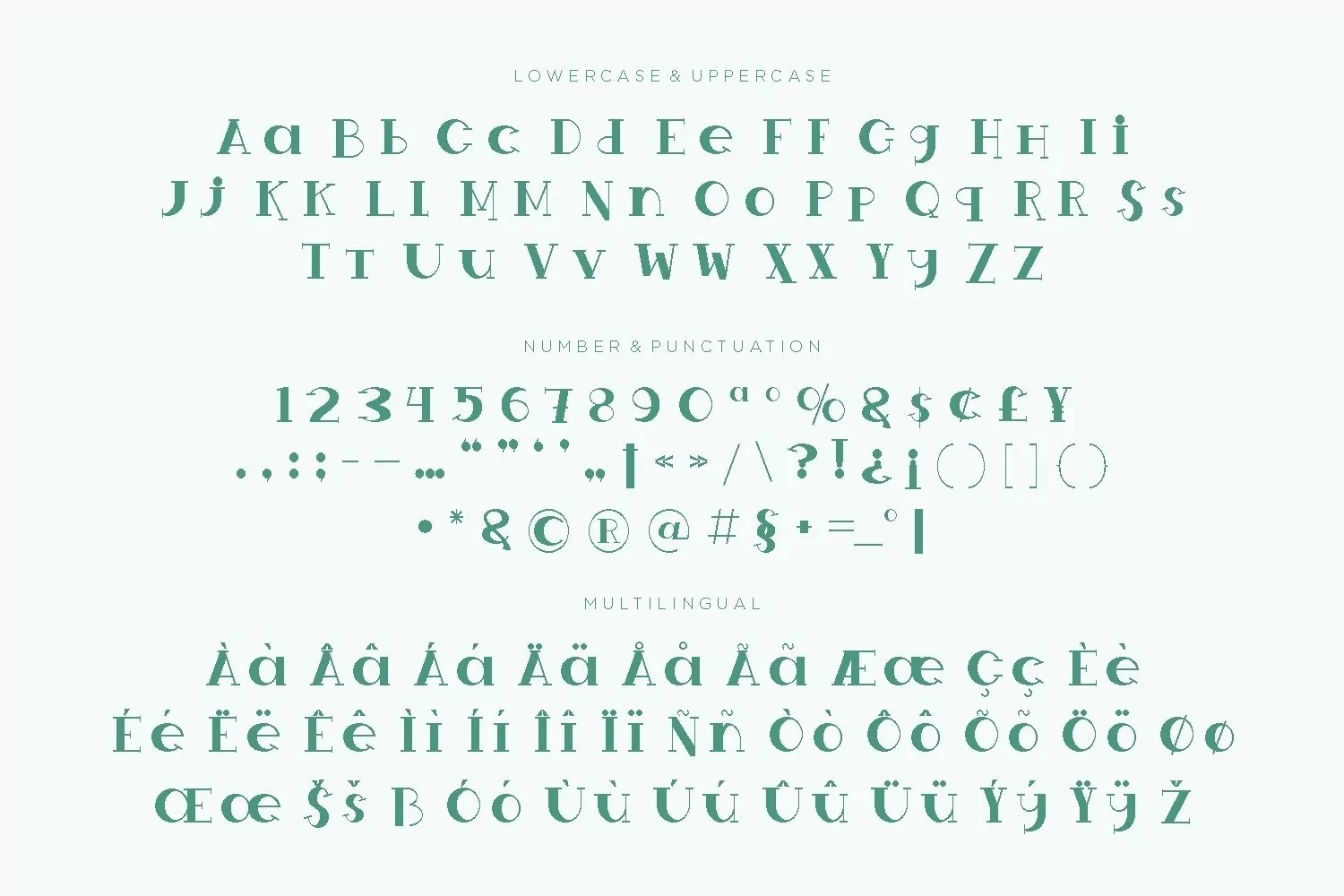
Arabella is a stylish serif font come with luxury themes. This font create with beautiful looks modern. It matches applies in some designs such as the logotype, brand, packaging, quotes, poster, shirt, book, wedding invitation and more custom design. The features uppercase, lowercase, numeral, punctuation & symbol, multilingual support, PUA encoded (fully accessible without additional design software).